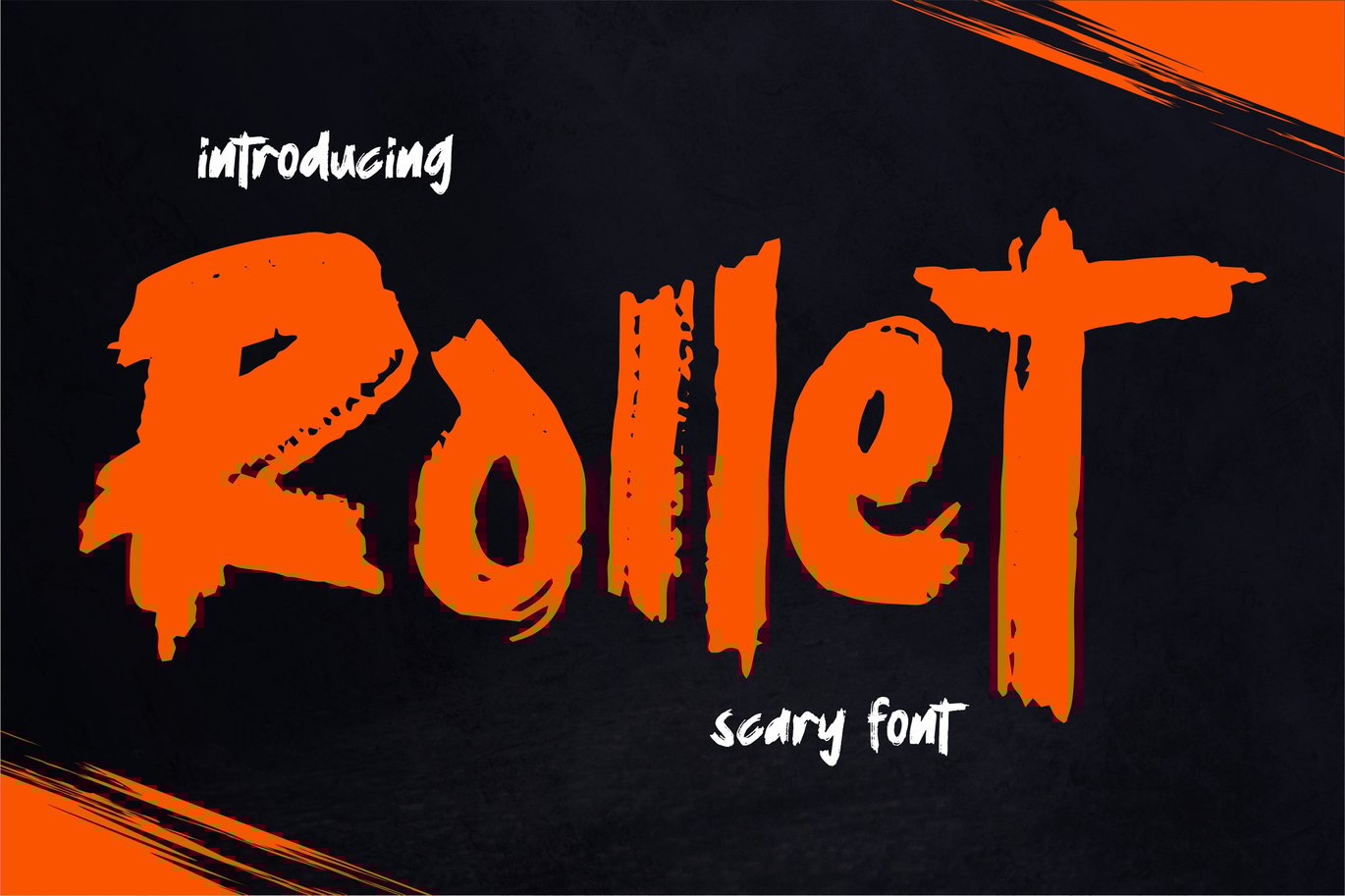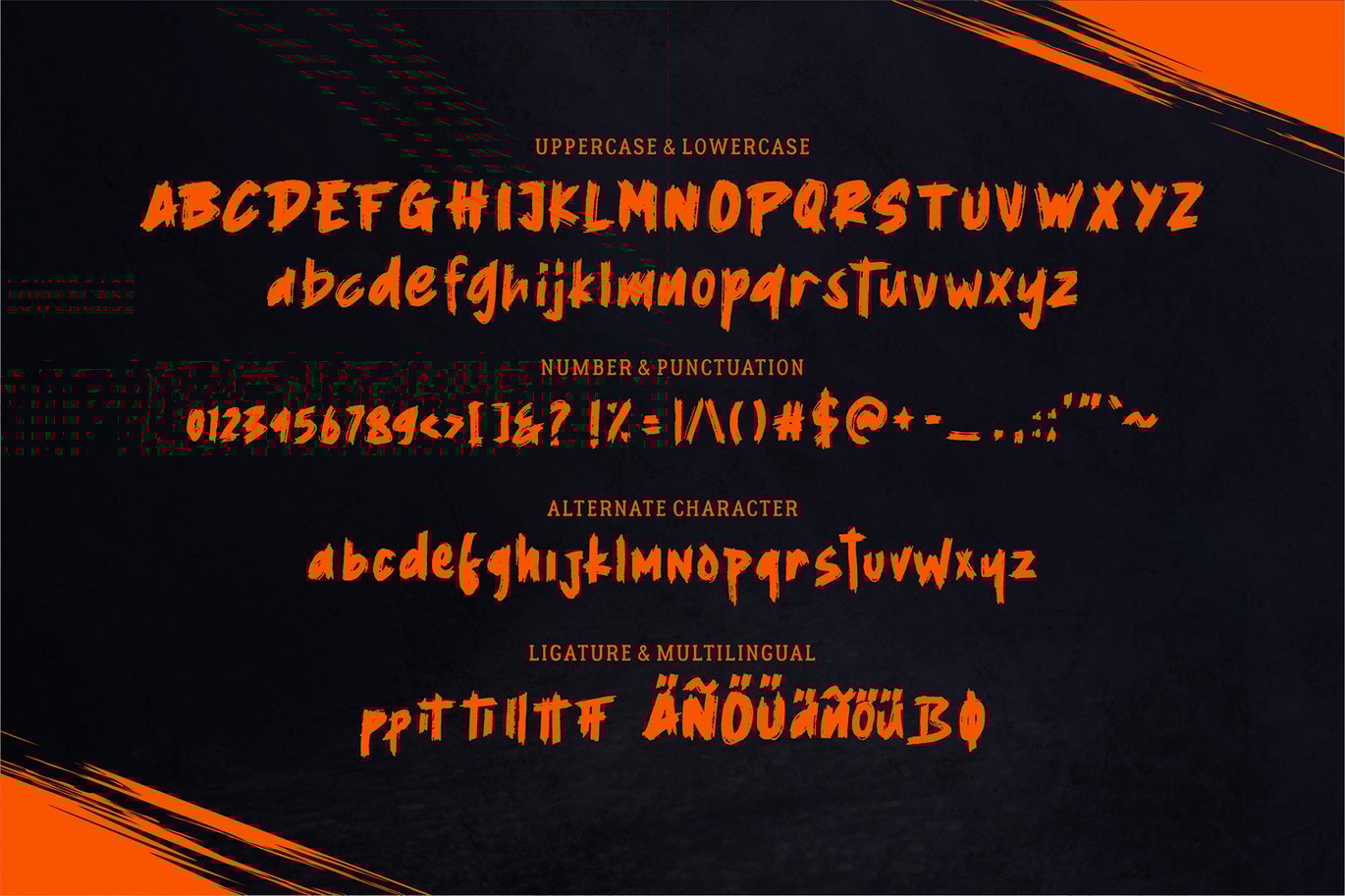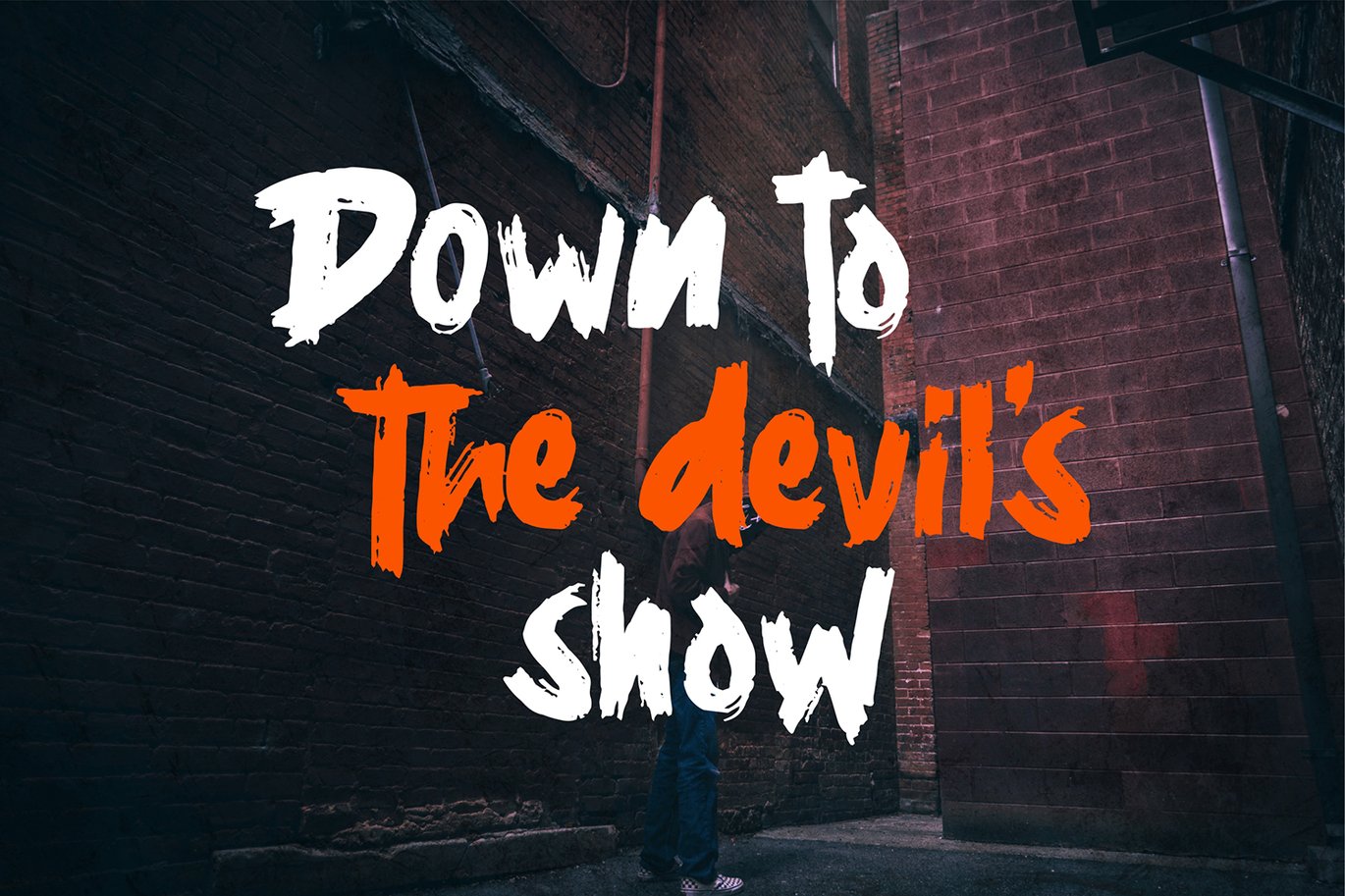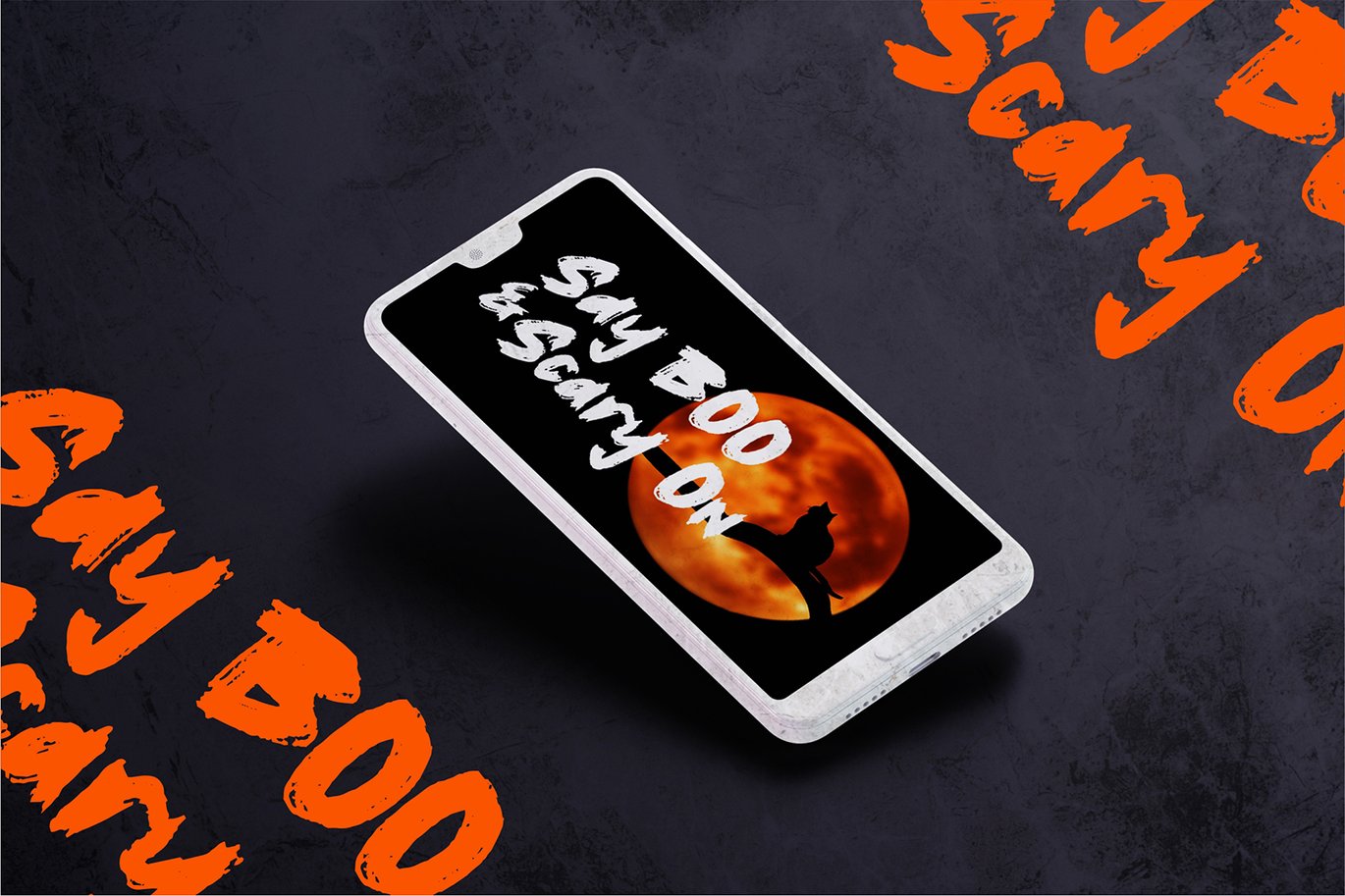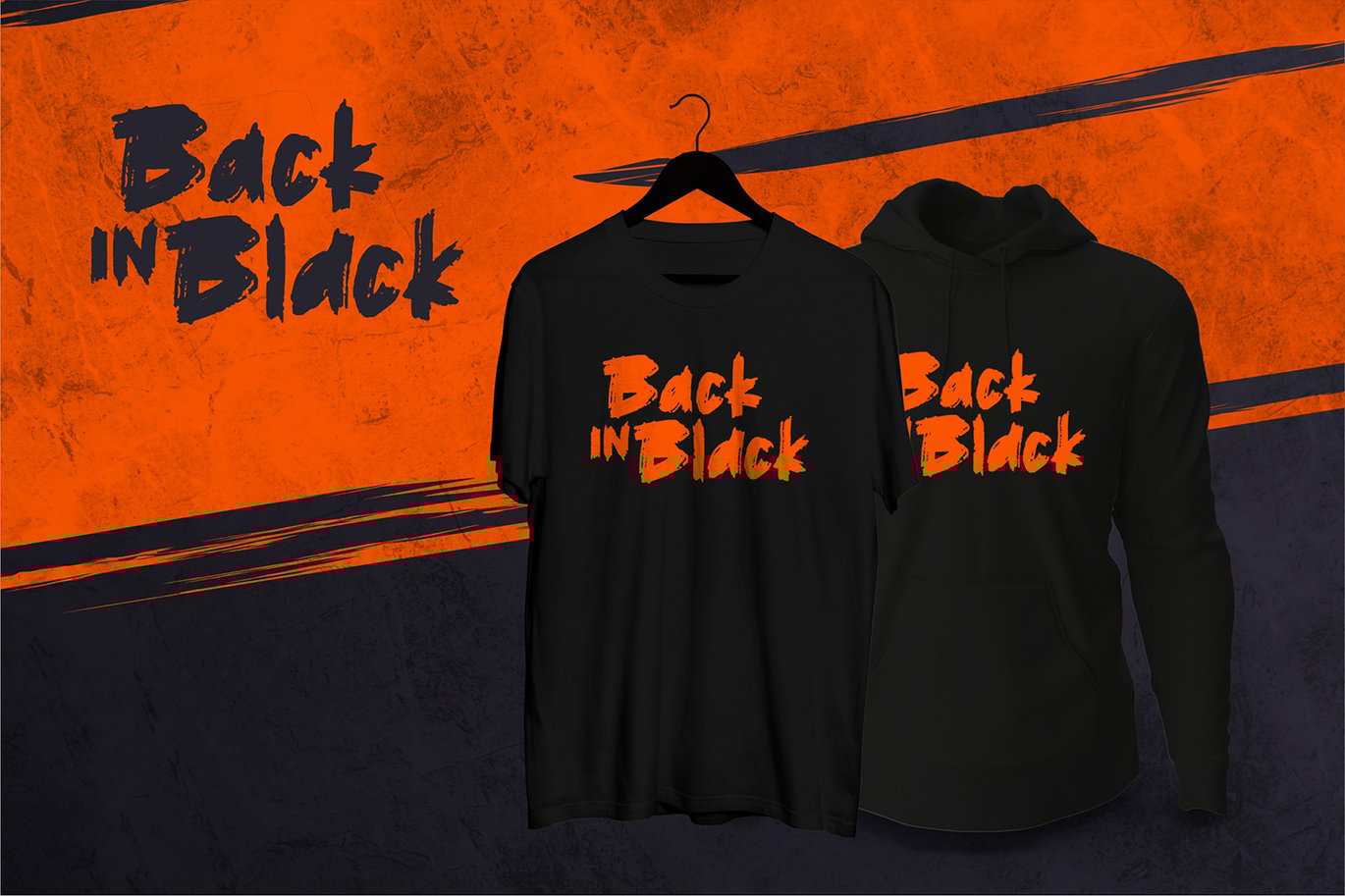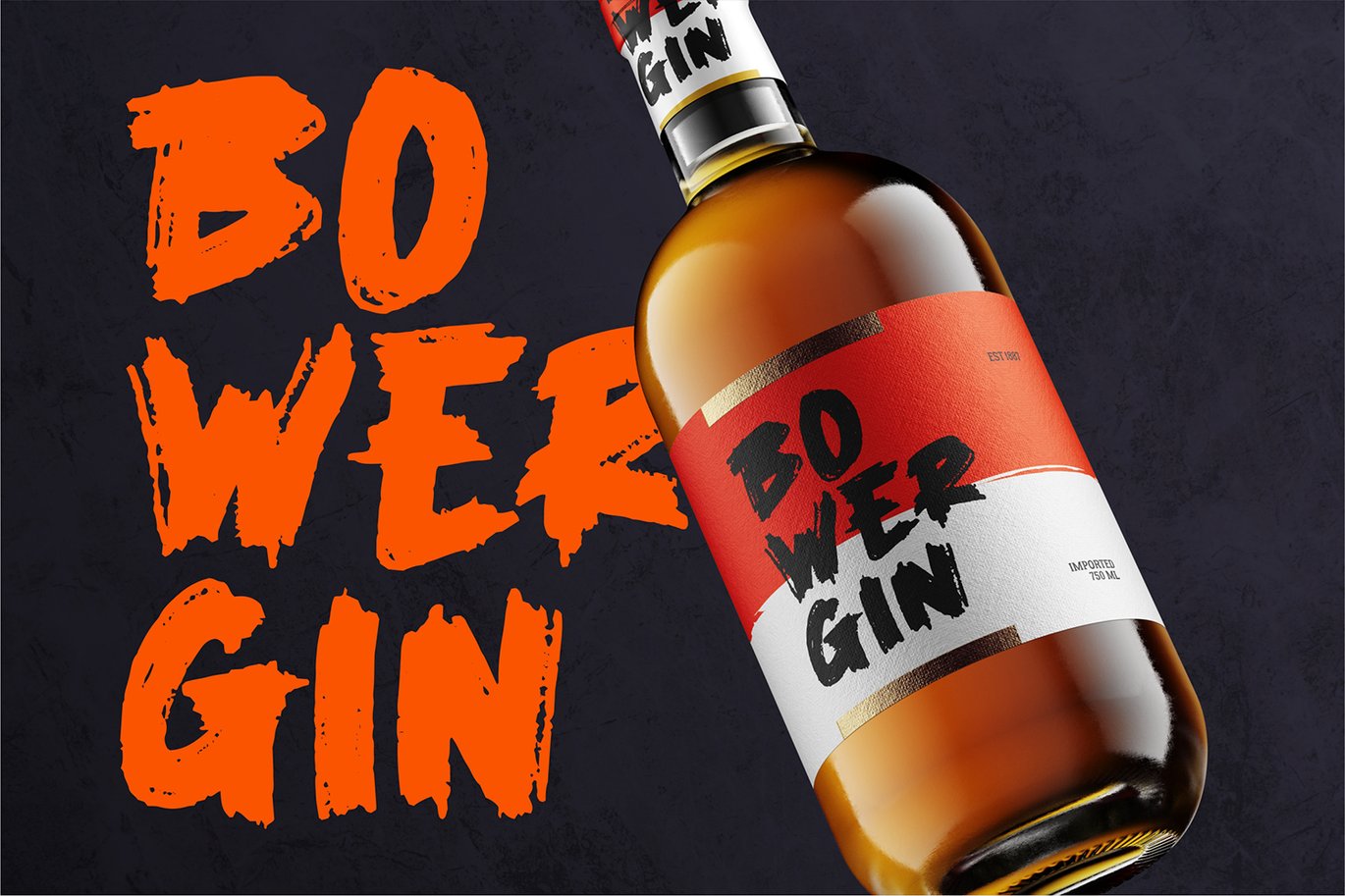
Rollet | Scary Font
Rollet | Scary Font with a calligraphy style, So beautiful on invitation like greeting cards, branding materials, business cards, quotes, posters, and more!